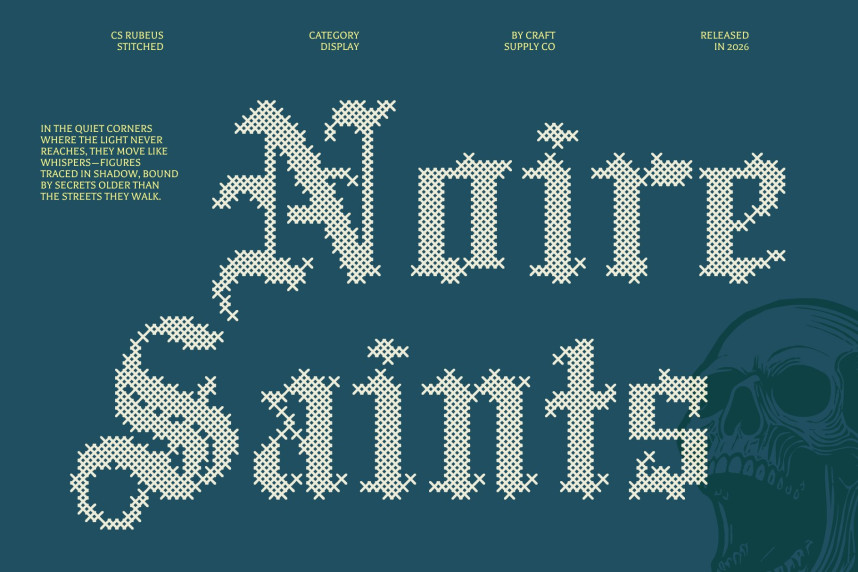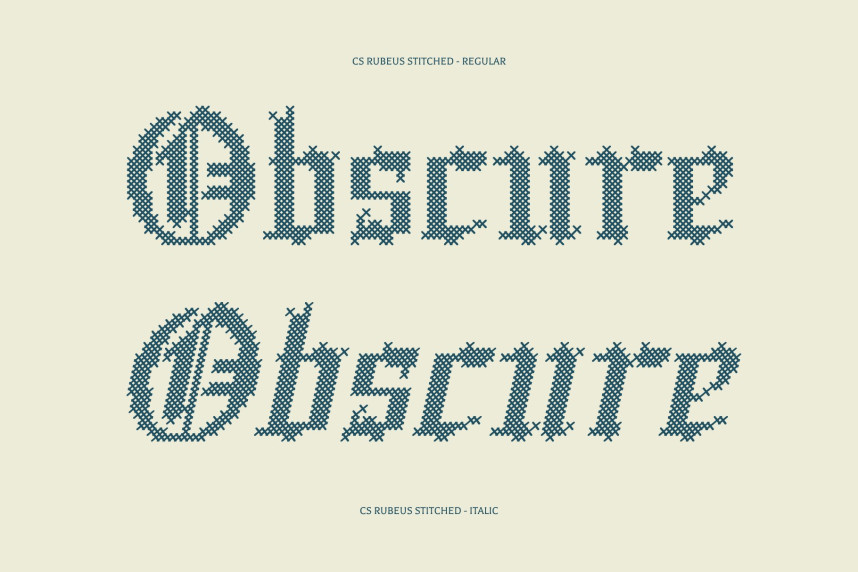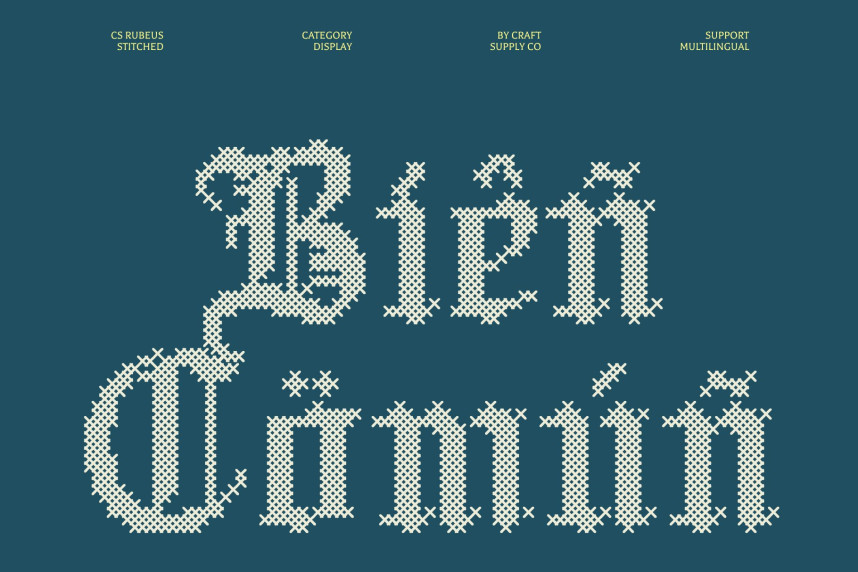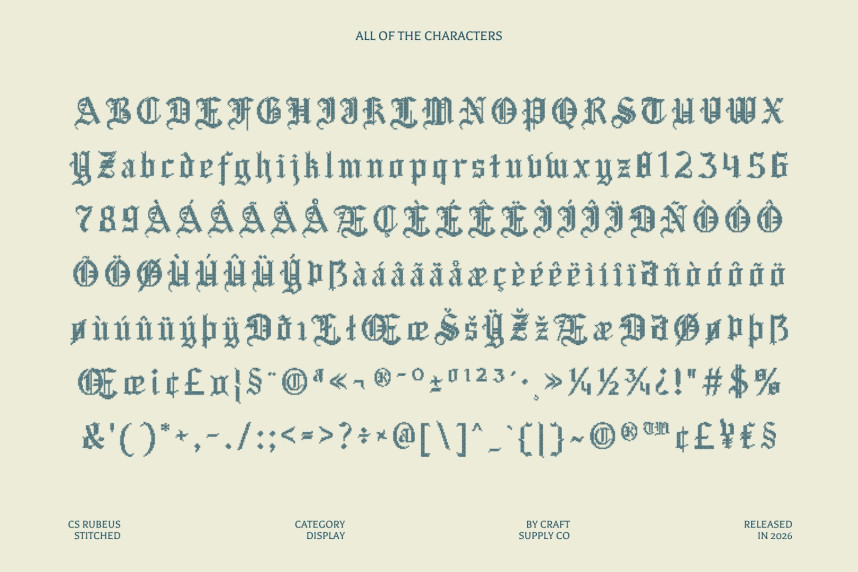
CS Rubeus Stitched Font – Old English Display Font: Where Medieval Drama Meets Handcrafted Detail
Ornamental Gothic Forms with Historic Depth
This is an Old English display font that draws from rich medieval ornamentation, delivering a dramatic and mysterious visual presence. Its intricate letterforms echo traditional blackletter aesthetics, filled with sharp angles and decorative flourishes that evoke a sense of history and grandeur.